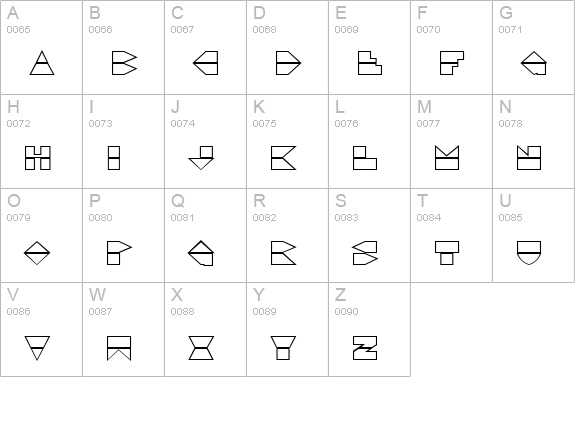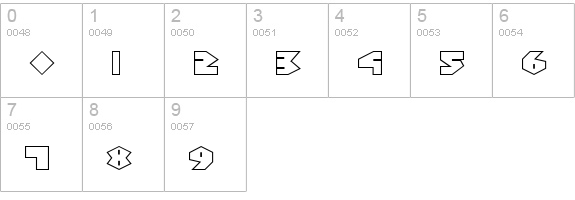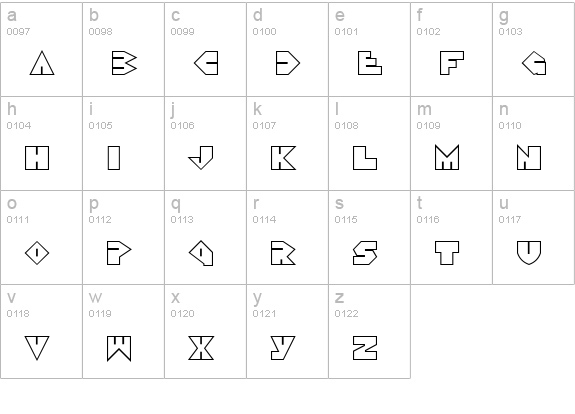
Disco Dork Outline font is a playful and retro typeface that exudes a fun and funky vibe perfect for any project that needs a touch of nostalgia. Its quirky, outlined design adds a unique and energetic flair to your designs, making them stand out from the crowd. This free font is sure to bring a sense of whimsy and joy to your creative projects. You can freely download Disco Dork Outline font from FontsMarket.com and start incorporating its groovy style into your designs today. Let your creativity shine with this free and fabulous font!